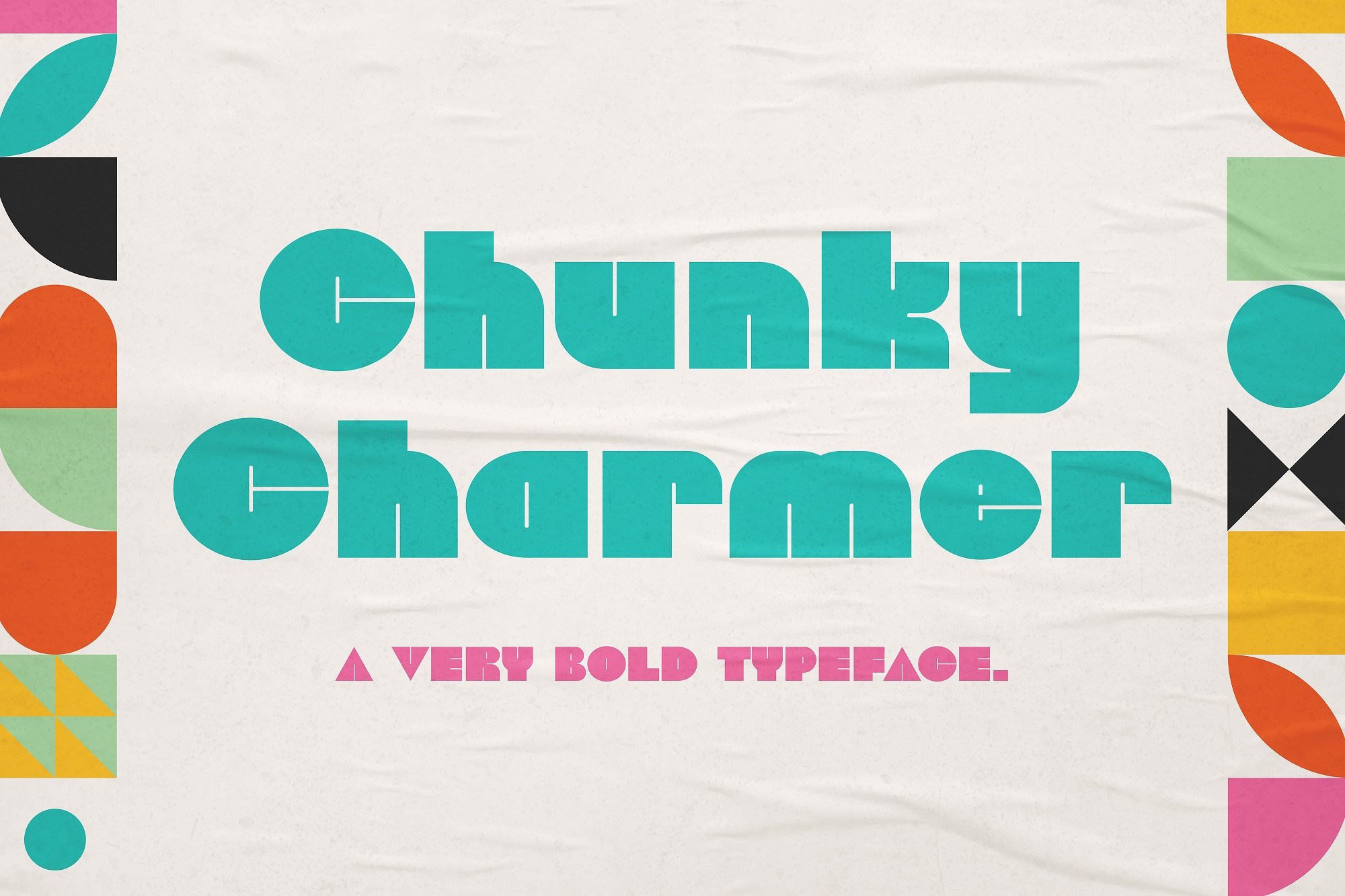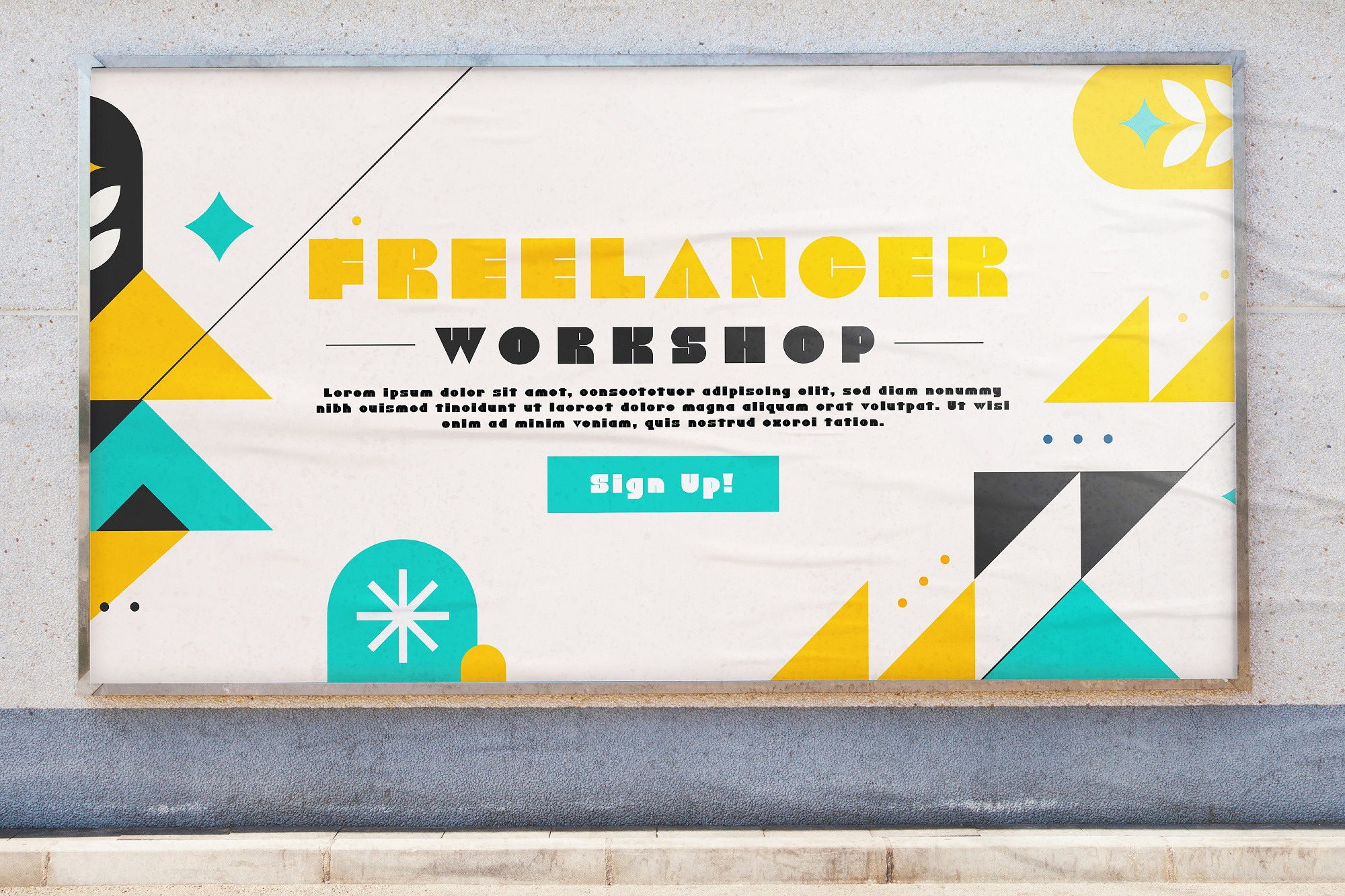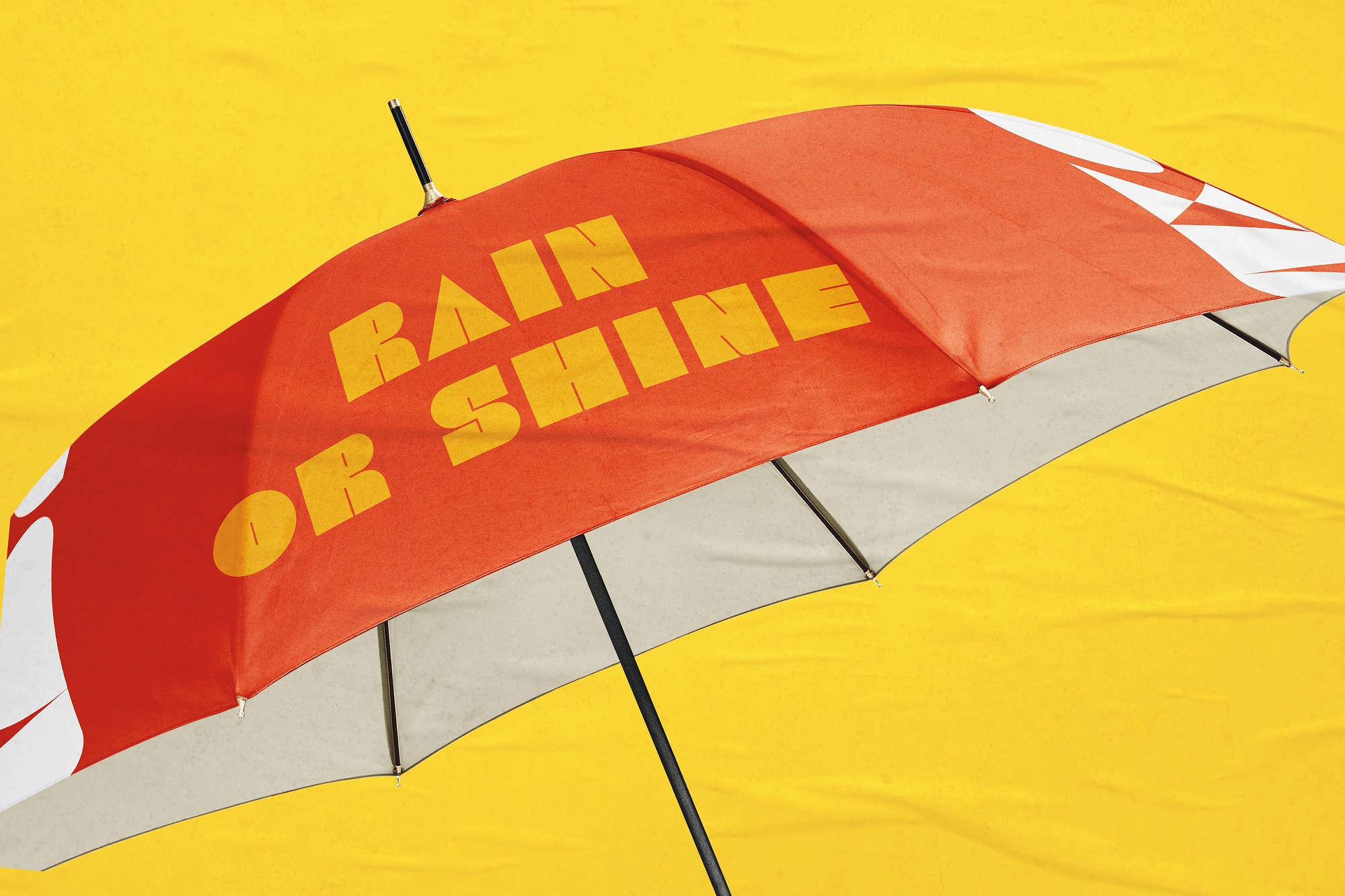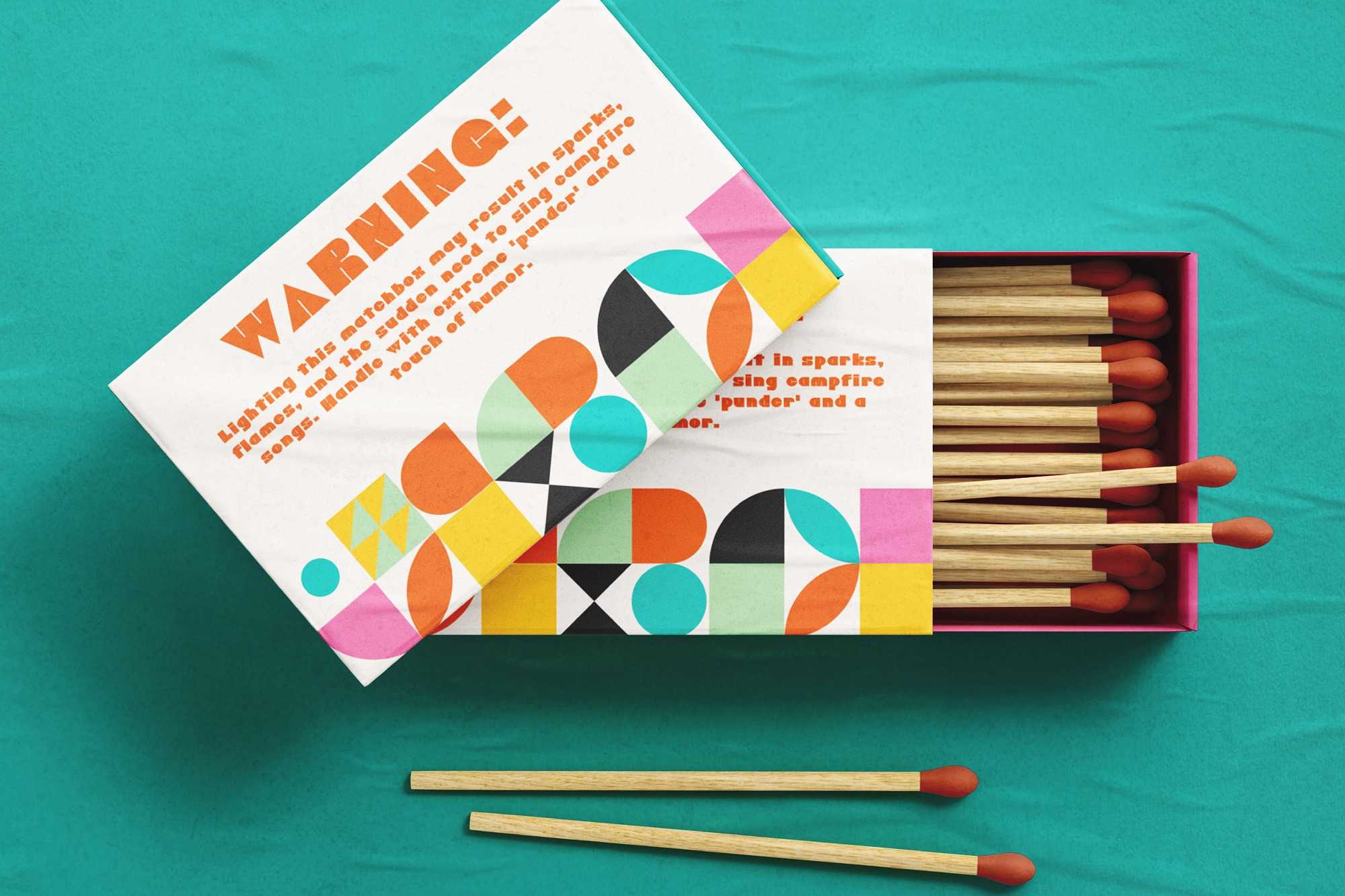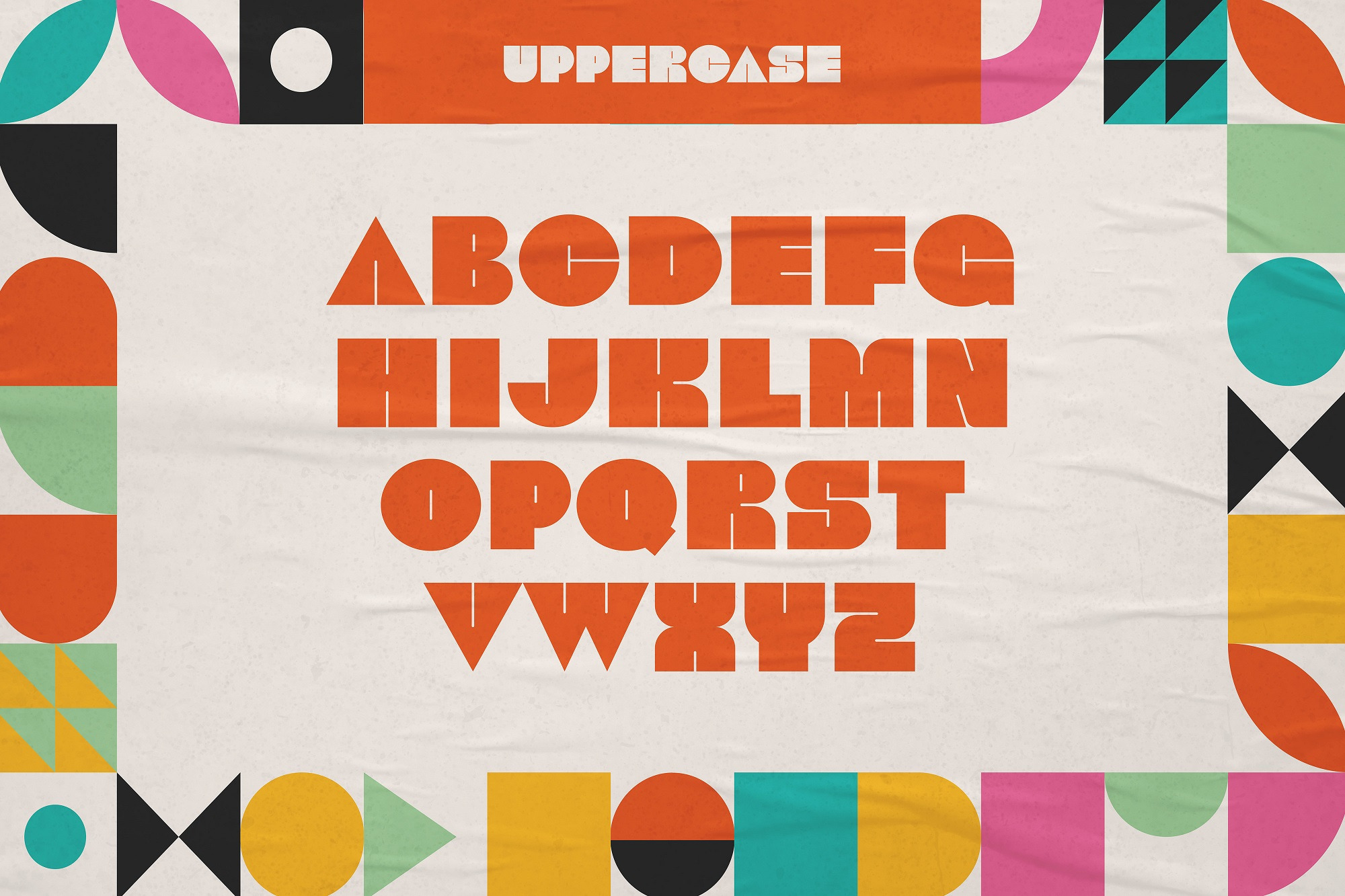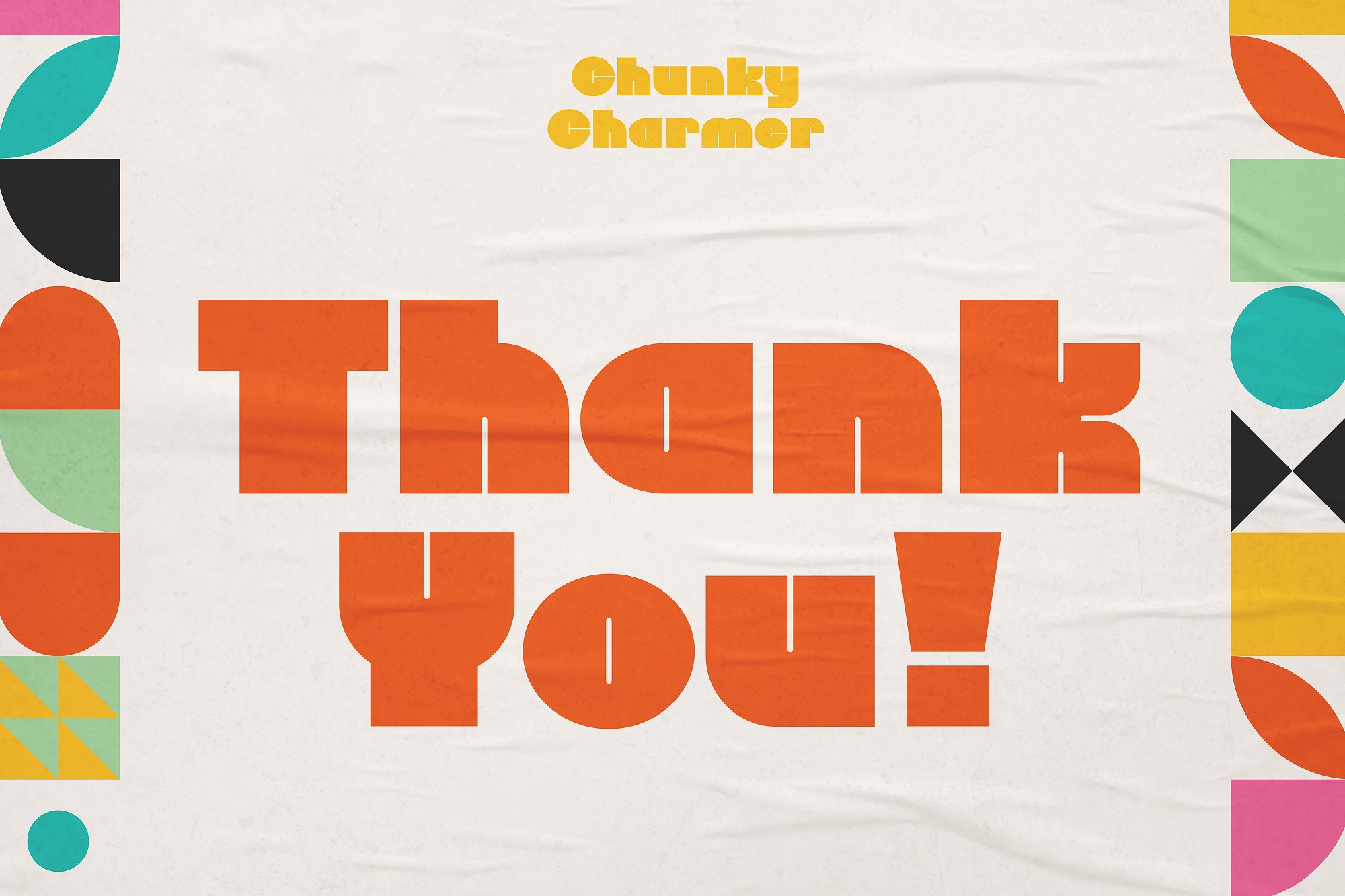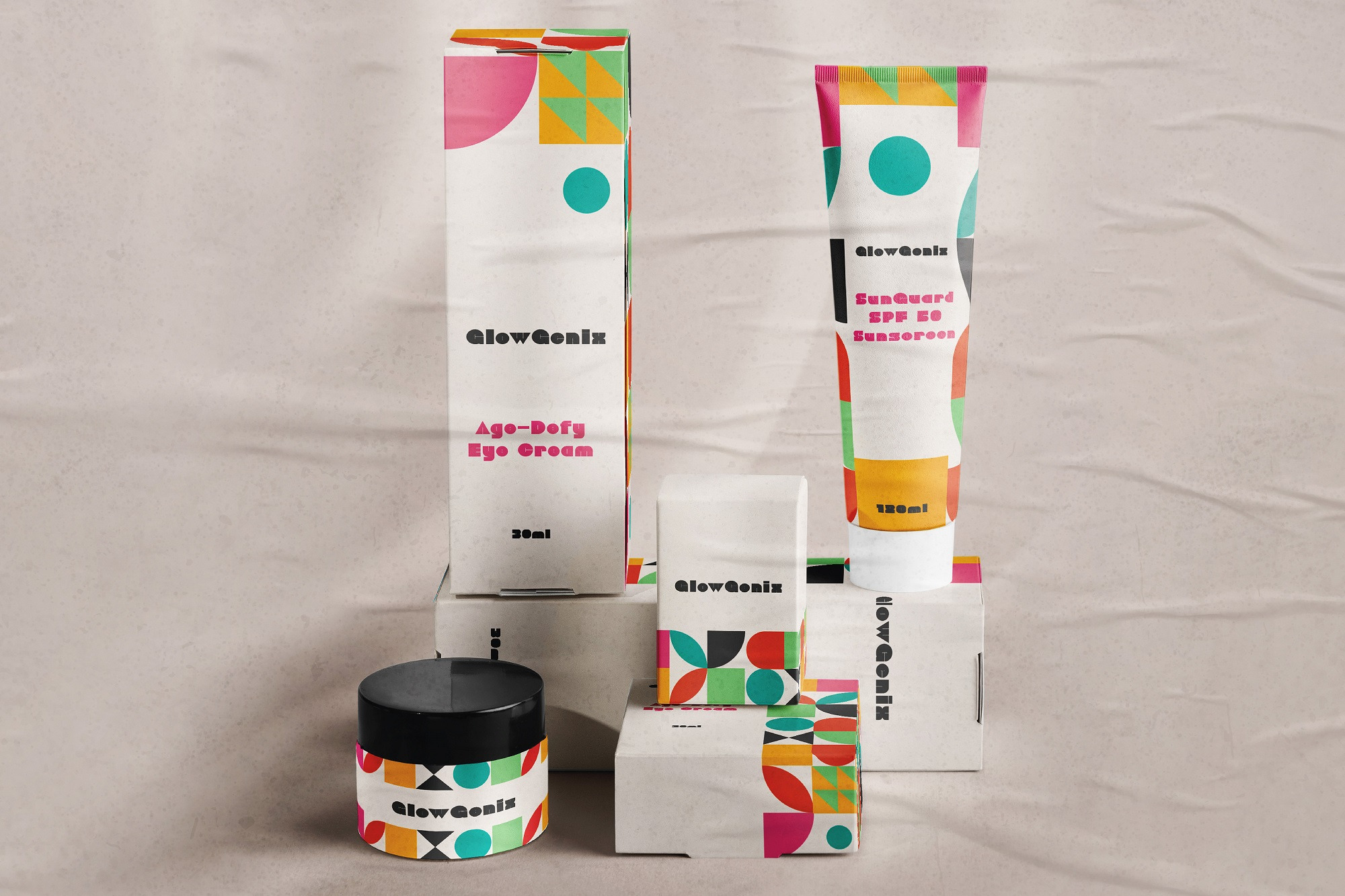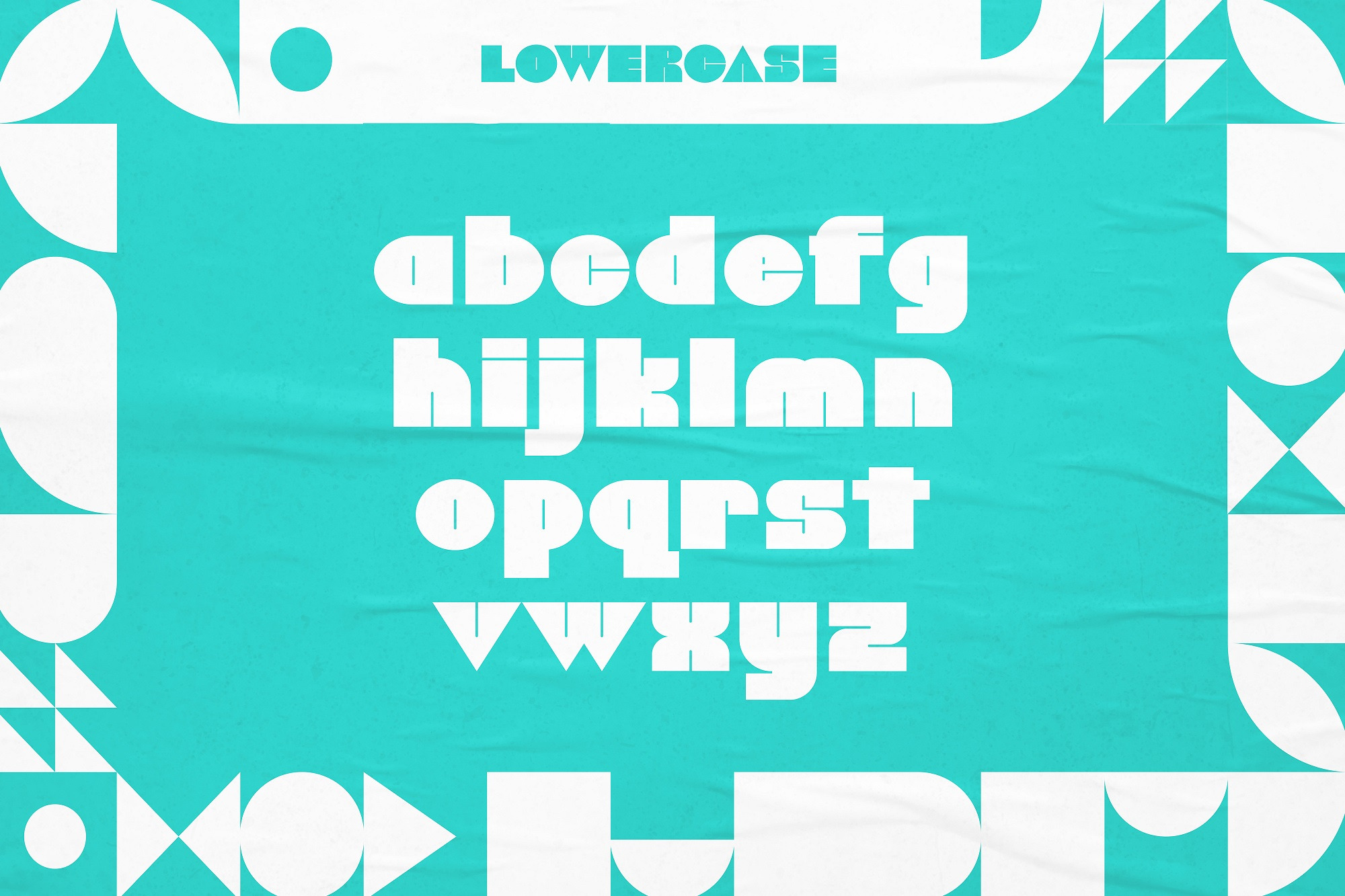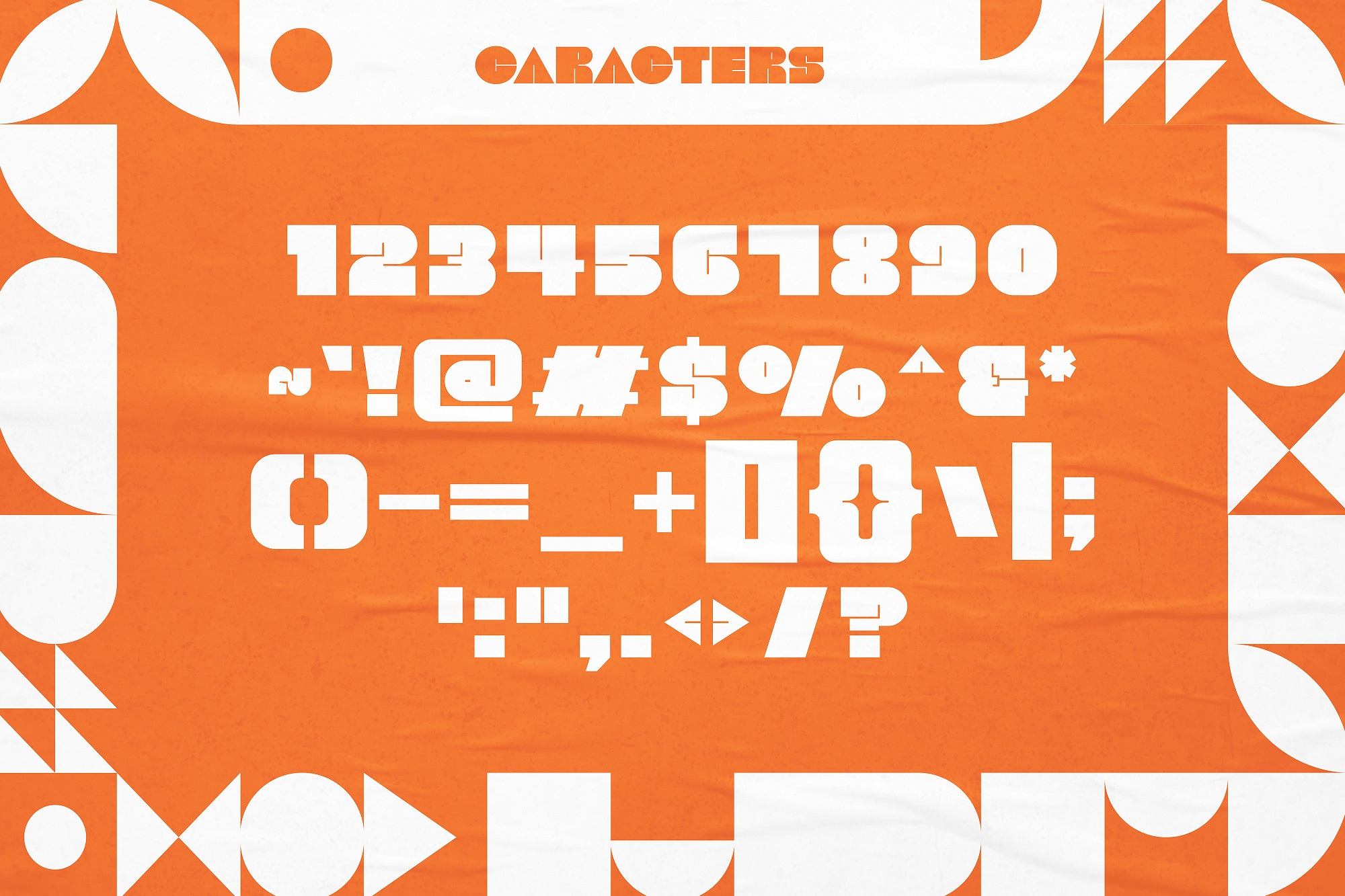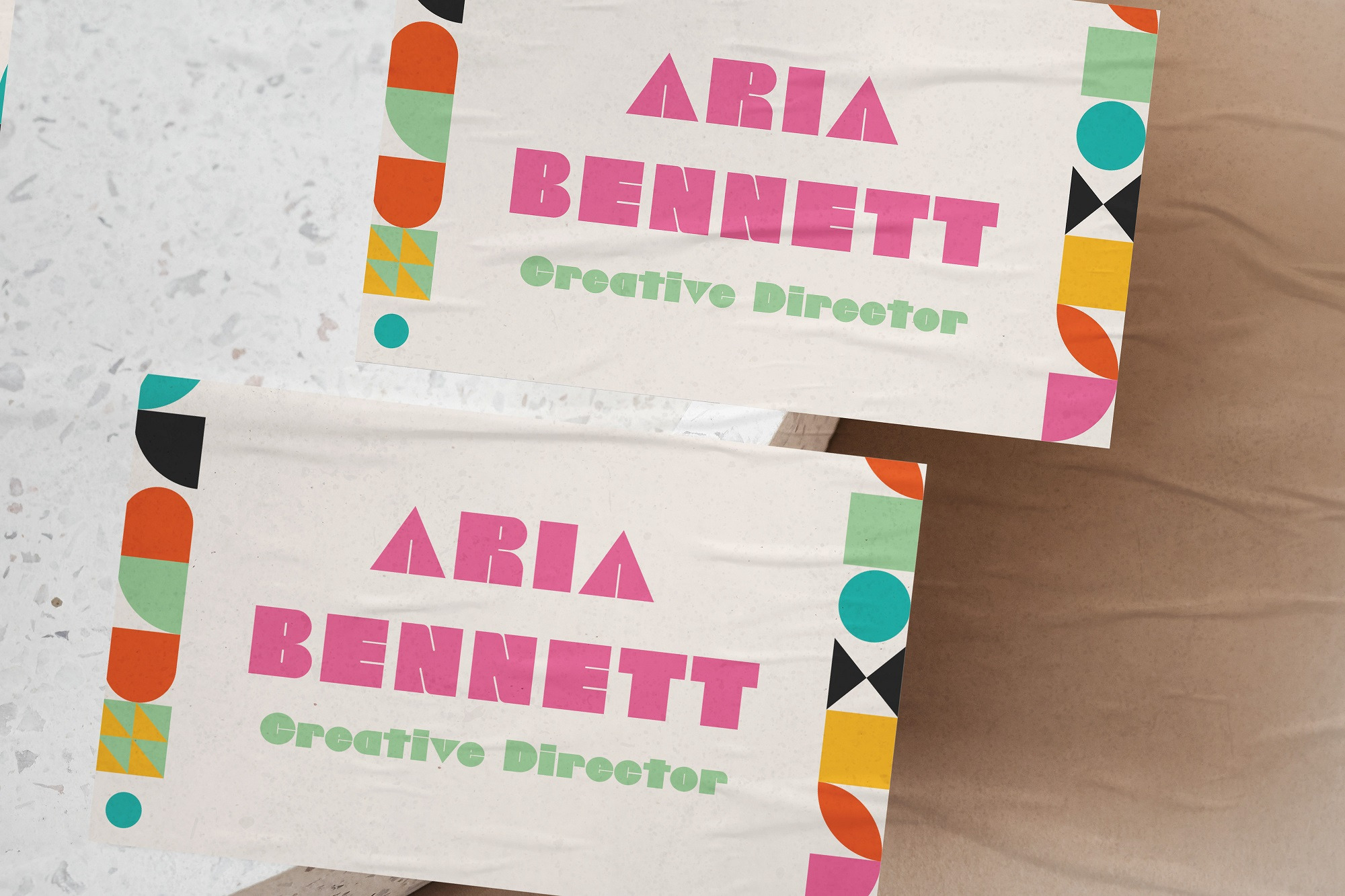
Meet Chunky Charmer, where boldness and charisma collide to craft a statement that's impossible to ignore. This typeface is the embodiment of audacity, showcasing thick, robust strokes that demand attention and exude confidence. Every character in Chunky Charmer is an anthem of assertion. Designed with purpose and precision, its weighty demeanor speaks to those who aren't afraid to stand out, to lead, to be heard. It's the ideal choice for designs that aim to make an impression—whether it's branding, attention-grabbing headlines, posters, or any project that craves a heavy dose of dynamism. Chunky Charmer isn't just a font; it's a declaration. Its unabashedly bold nature celebrates the power of being different and the joy of embracing individuality. With this typeface in your arsenal, every word will resonate with weight, every message will be unapologetically loud, and every design will proudly stand its ground. Dive into the world of Chunky Charmer, and let your designs shout, sparkle, and shine with unabashed confidence. What's Included : - ttf/otf File - Standard glyphs - Works on PC & Mac - Simple installations Accessible in the Adobe Illustrator, Adobe Photoshop, Corel Draw. PUA Encoded Characters - Fully accessible without additional design software. Image used : All photographs/pictures/vector used in the preview are not included, they are intended for illustration purpose only. | Chunky Charmer - Bold Typeface | HipFonts